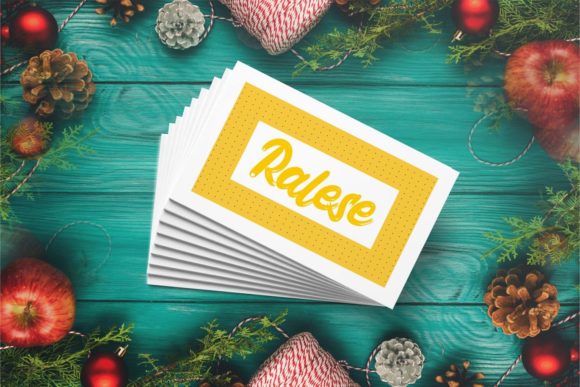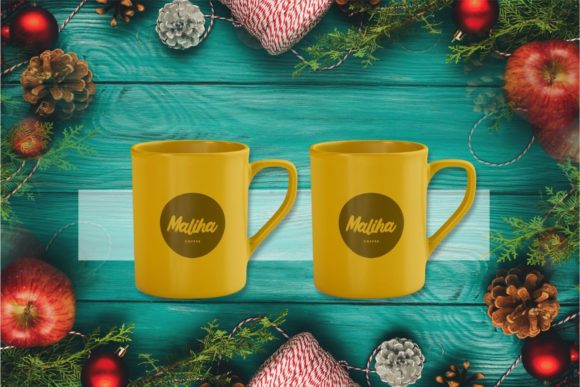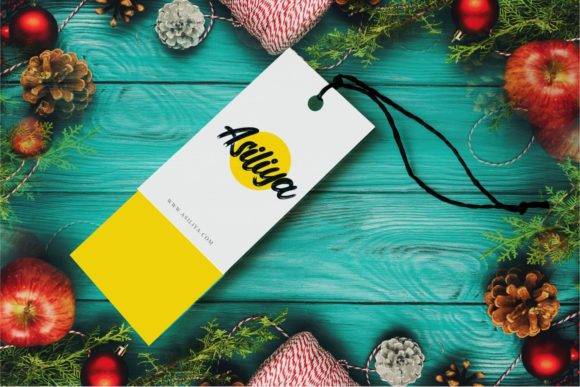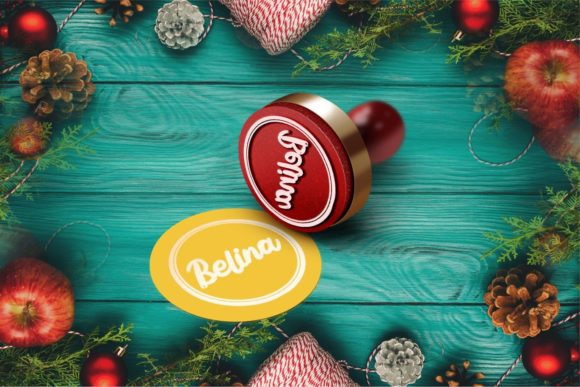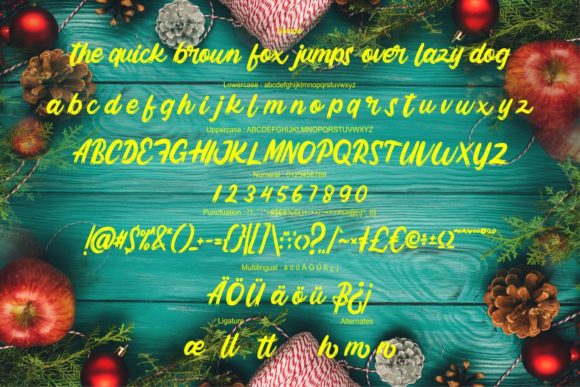
Introducing Dalash Font: Elevate Your Designs with a Cursive, Brushed, and Beautiful Handwritten Style
In the world of typography, fonts play a crucial role in conveying the tone and aesthetic of a design. For designers and crafters looking to add a touch of elegance and freshness to their projects, Dalash Font is an exceptional choice. This stunning cursive, brushed, and handwritten font is specifically crafted to provide a beautiful and refreshing look to your designs.
What Makes Dalash Font Special?
Dalash Font stands out from the crowd with its unique blend of cursive and brushed strokes, giving it a distinctive and eye-catching appearance. The font’s handwritten nature adds a personal touch, making it perfect for designs that require a human and approachable feel. Whether you’re working on a branding project, packaging design, or social media graphics, Dalash Font is sure to elevate your work.
Key Features of Dalash Font
- Cursive and Brushed Style: Dalash Font boasts a beautiful cursive and brushed style that adds a touch of sophistication to your designs.
- Handwritten Appearance: The font’s handwritten nature gives it a personal and approachable feel, making it perfect for designs that require a human touch.
- Beautiful and Refreshing: Dalash Font is designed to provide a beautiful and refreshing look to your designs, making it ideal for projects that require a unique and eye-catching aesthetic.
- Easy to Read: Despite its cursive nature, Dalash Font is easy to read, making it suitable for body text and other applications where legibility is crucial.
Uses of Dalash Font
Dalash Font is a versatile font that can be used in a wide range of design applications, including:
- Branding and Logo Design: Use Dalash Font to create stunning logos and brand identities that reflect your company’s personality and values.
- Packaging Design: Add a touch of elegance and sophistication to your packaging designs with Dalash Font.
- Social Media Graphics: Use Dalash Font to create eye-catching social media graphics that grab attention and drive engagement.
- Wedding and Event Design: Dalash Font is perfect for wedding and event designs, such as invitations, programs, and signage.
Tips for Using Dalash Font
To get the most out of Dalash Font, here are some tips to keep in mind:
- Pair with Other Fonts: Experiment with pairing Dalash Font with other fonts to create a unique and visually appealing combination.
- Adjust Font Size and Color: Adjust the font size and color to suit your design needs and ensure optimal legibility.
- Use for Headings and Titles: Use Dalash Font for headings and titles to add a touch of elegance and sophistication to your designs.
In conclusion, Dalash Font is a stunning cursive, brushed, and handwritten font that is perfect for designers and crafters looking to add a touch of elegance and freshness to their designs. With its unique blend of cursive and brushed strokes, Dalash Font is sure to elevate your work and provide a beautiful and refreshing look to your designs.